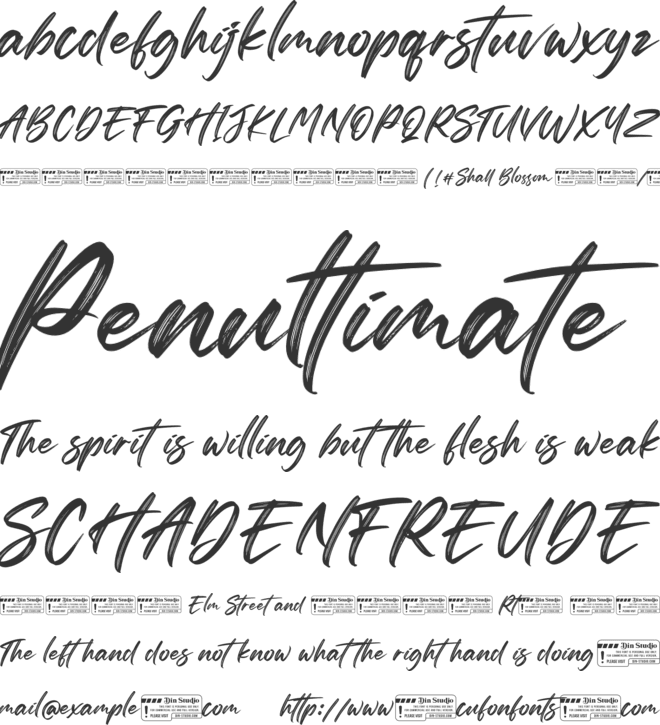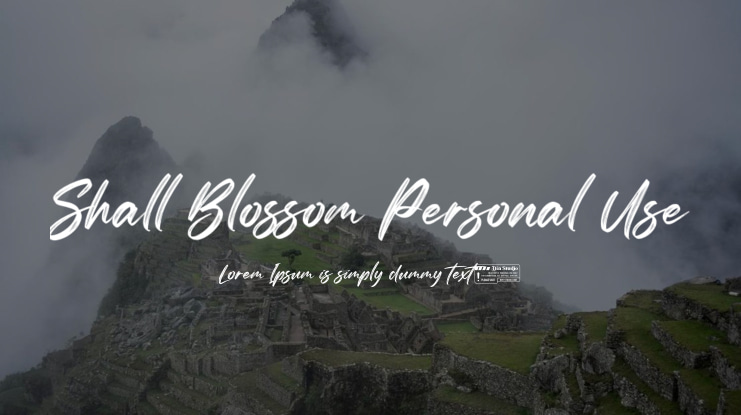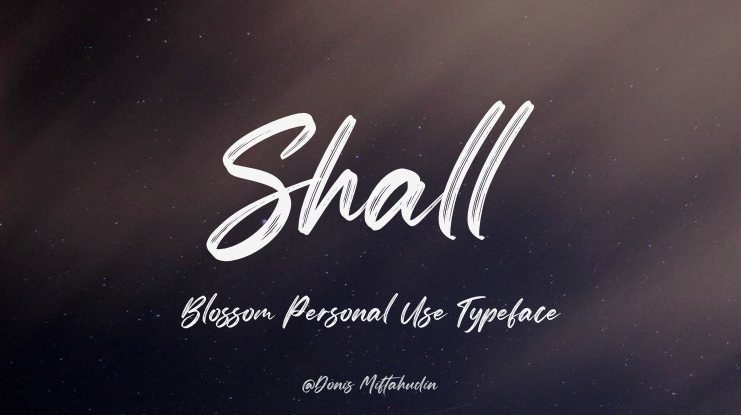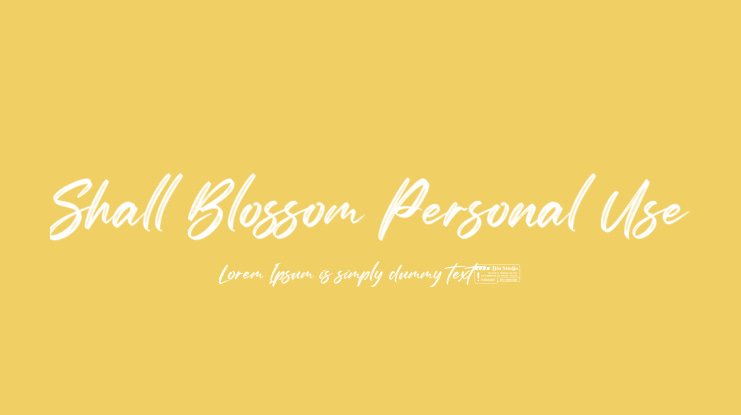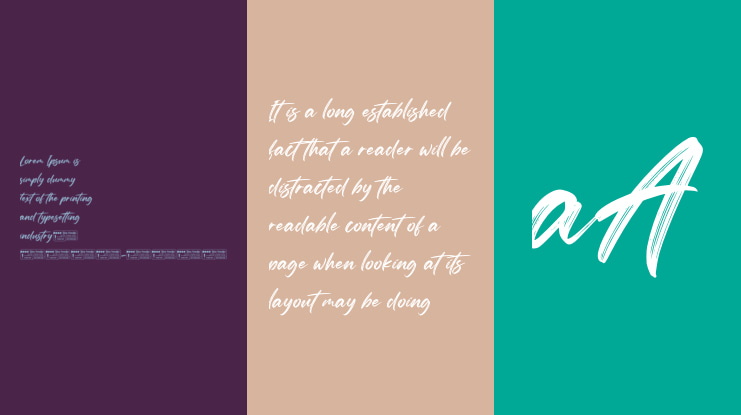
Product Description: Shall Blossom is a charming brush font that combines handwritten elements with a brush style, enhancing the appeal of your design projects. Ideal for professional branding initiatives, this font is best suited for logos, branding materials, and quotes. Explore the previews above for inspiration on creative applications.